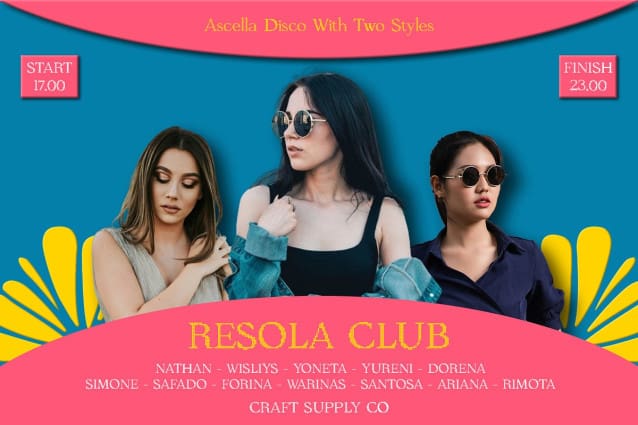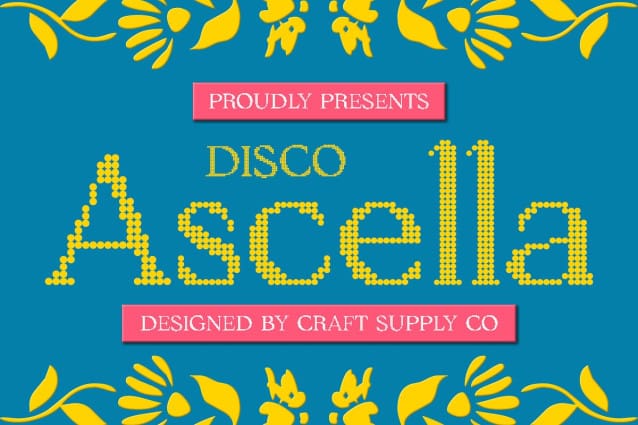
Ascella Disco Font
Ascella Disco Font: Groovy Display Typeface. Disco-inspired Serif Display Ascella Disco features a unique serif design with high contrast and playful dot effects, evoking the vibrant atmosphere of disco. Its striking appearance is perfect for eye-catching display projects.
Dancing with High Contrast The high contrast in This font letterforms adds drama and flair to each character, enhancing readability while injecting a sense of dynamism. The bold strokes and delicate dots create a captivating rhythm across the typeface.
Perfect for Bold Display Tailored for bold display purposes, This font shines in various contexts, from event posters to album covers. Its disco-inspired aesthetic commands attention and sets the stage for unforgettable designs.
Versatility in Design Beyond its disco-themed allure, This font offers versatility in design applications. Whether used in branding, packaging, or digital media, its unique style adds a touch of retro charm and modern sophistication.
Typeface That Dances This font is more than just a font; it’s a dance party captured in typography. With its disco-inspired serif design and dynamic dot effects, it brings a sense of joy and movement to any display project. Get ready to groove with Ascella Disco and make your designs shine on the dance floor of creativity.